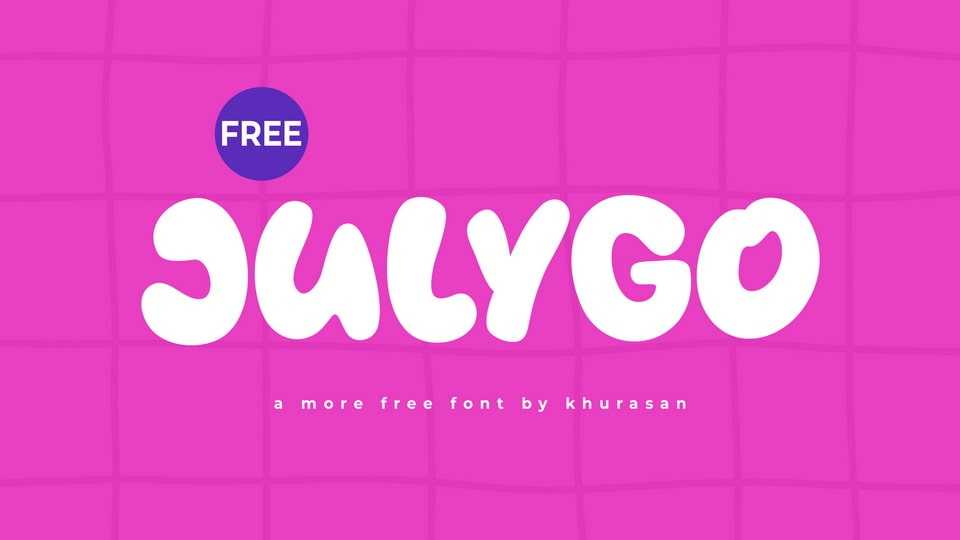
Download Julygo font, a soft and bouncy typeface radiating joy and friendliness. Its rounded, bubbly letterforms feel like cotton candy on a summer day.